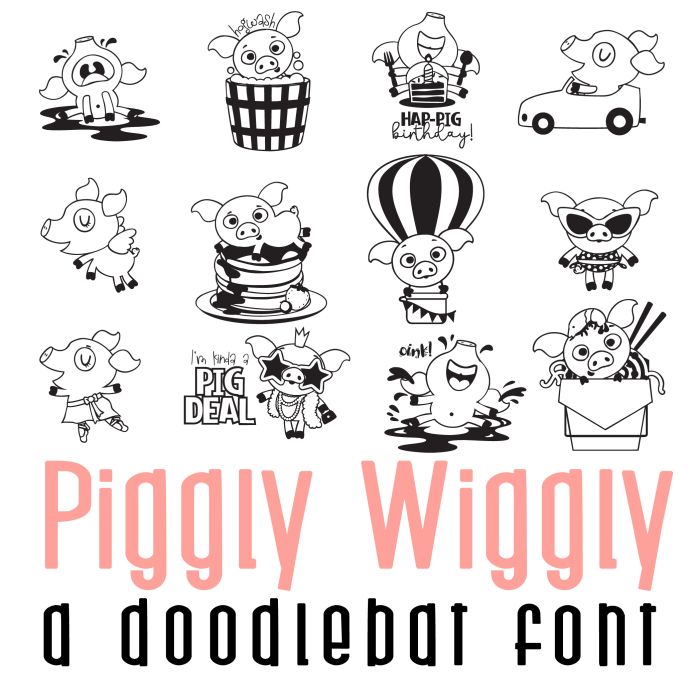
Piggly Wiggly Doodlebat Font
This adorable doodlebat font features 26 cute little pigs perfect for cards, crafts, gifts, classrooms, scrap booking, planner stickers and more!